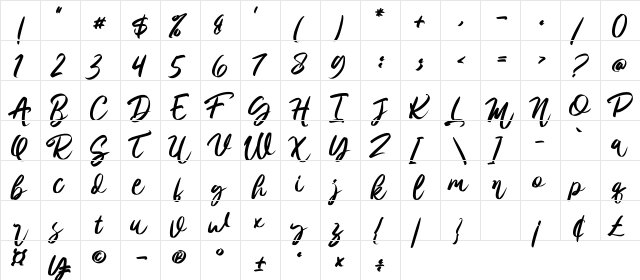
Alisa Regular
| Designer | Omotu Studio 2020 |
Design Context for Alisa Typeface
Alisa is a composed and adaptable typeface that performs quietly and consistently across a wide range of design contexts.